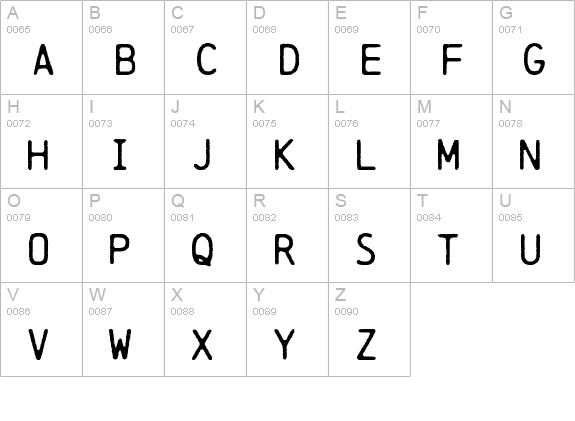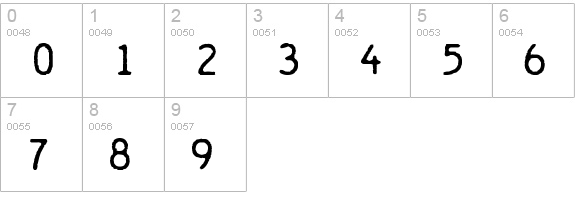
Chainprinter font is a modern and stylish typeface that combines sleek lines with a touch of industrial charm. Its bold and eye-catching design makes it perfect for a wide range of projects, from branding to posters and everything in between. The unique geometric shapes of Chainprinter give it a contemporary feel that will make your designs stand out. The best part about Chainprinter font is that it is completely free to download at FontsMarket.com. This means that you can easily access this versatile typeface without any cost, making it a valuable addition to your font library. Whether you are a graphic designer looking for a fresh new font to add to your collection or a business owner wanting to elevate your branding, Chainprinter is a fantastic choice that won't break the bank. With its distinctive style and easy accessibility, Chainprinter font is sure to become a go-to option for all your design needs. Download it today and see how this dynamic font can enhance your projects with its modern flair and professional look.